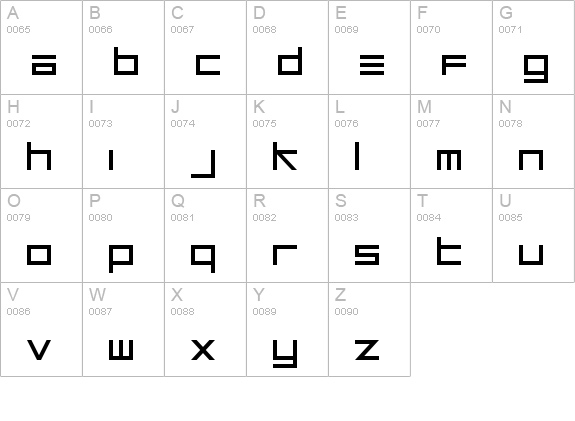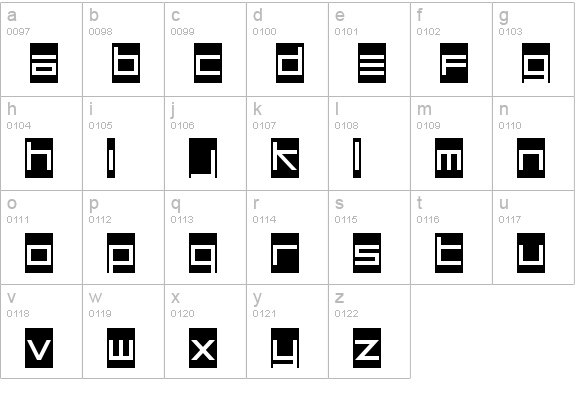
Unsteady Oversteer Font Details
Unsteady Oversteer font is a unique and eye-catching typeface that exudes a sense of movement and energy. Its bold and daring design captures the essence of speed and excitement, making it perfect for projects that require a dynamic and adventurous touch. With its exaggerated and slightly distorted letterforms, Unsteady Oversteer font adds a touch of rebelliousness and unpredictability to any design. Whether you're working on a poster for a high-octane racing event, a sports magazine cover, or a logo for an adrenaline-fueled brand, this font will surely make a powerful statement. The free availability of Unsteady Oversteer font at FontsMarket.com makes it accessible to designers and creatives of all kinds. This means that you can easily incorporate this captivating typeface into your projects without any hassle or extra cost. It's a fantastic opportunity to enhance your designs with a font that stands out from the crowd and leaves a lasting impression. Unsteady Oversteer font is versatile and can be used in a wide range of design applications. Its edgy and energetic nature makes it ideal for anything related to motorsports, extreme sports, or any project that aims to capture the spirit of adventure. From posters and flyers to website headers and social media graphics, this font will bring a touch of excitement and dynamism to any visual communication. So, if you're looking to inject a dose of energy and boldness into your designs, look no further than Unsteady Oversteer font. Download it freely at FontsMarket.com and let its distinctive and captivating letterforms take your design projects to new heights. Get ready to impress your audience and make a statement with this exciting and freely available font.